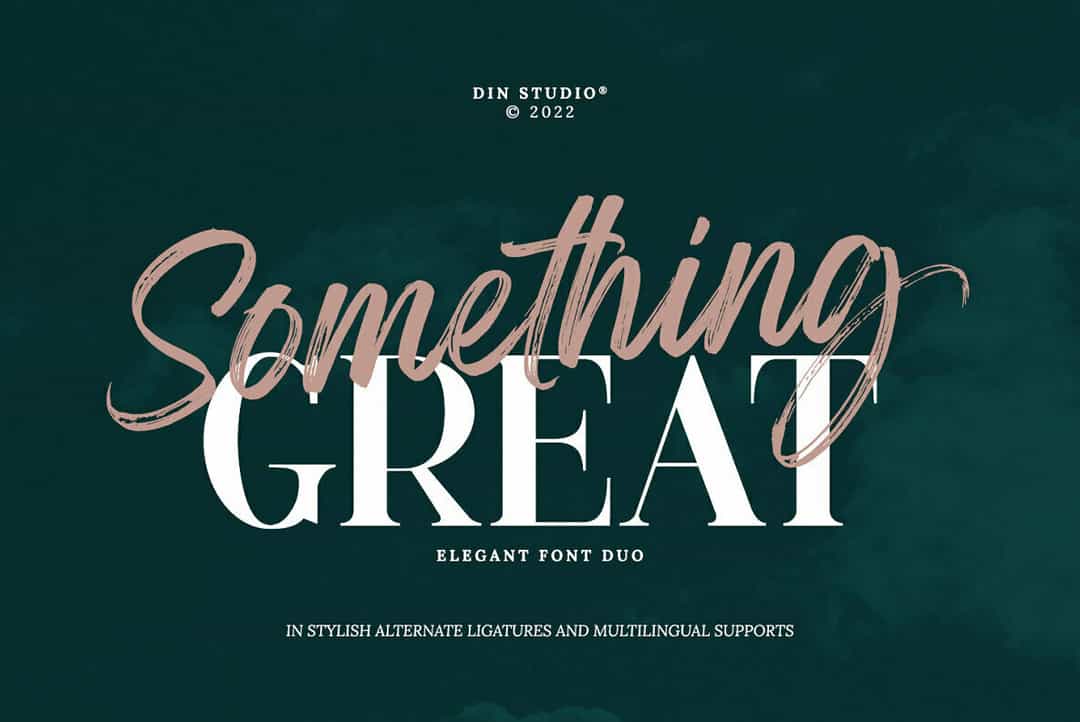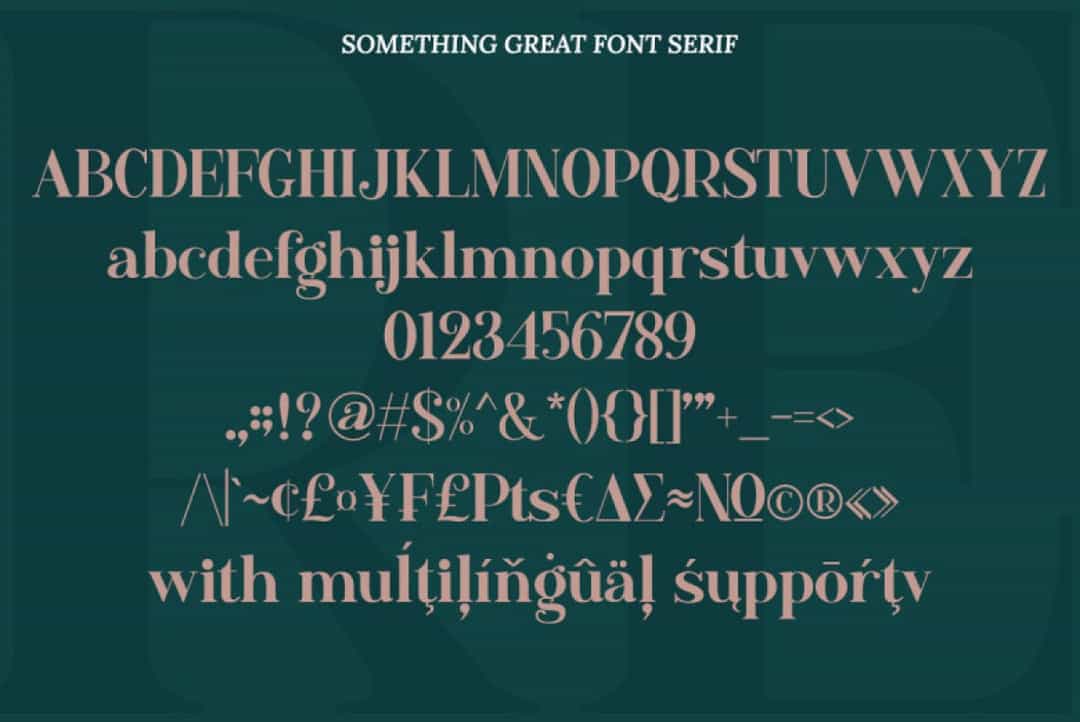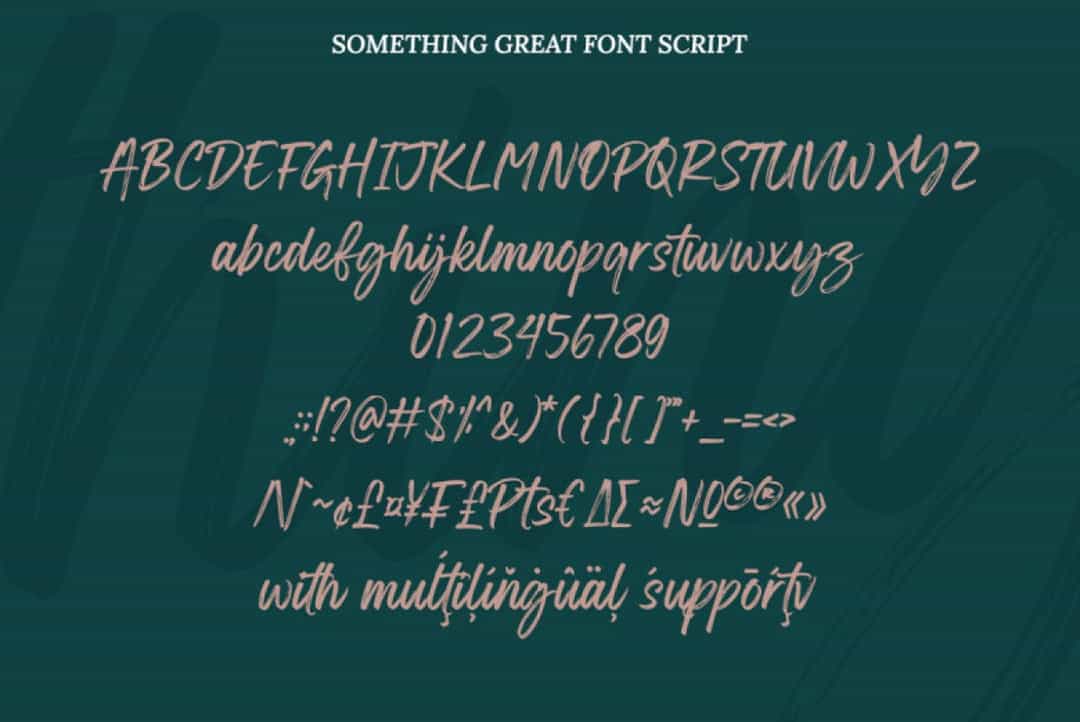
Something Great Font is an exquisite font duo. With the script font bringing luxury and elegance, and serif providing contemporary style. Both fonts can be worn together to form an eye-catching set or individually for unique styles – great for designs, presentations, branding campaigns, quotes invitations website designs as well as invitations. It makes your designs shine.